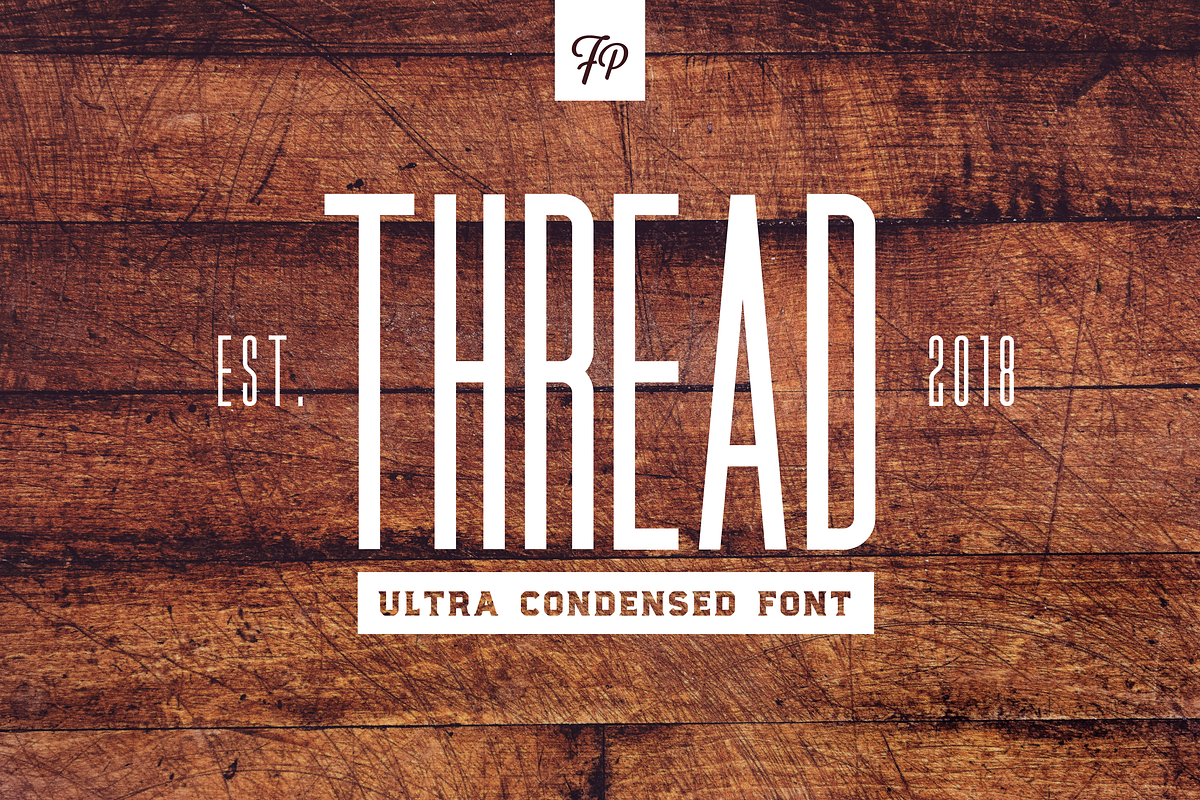
Thread - Ultra Condensed Font Free Download
Thread – Ultra Condensed Font Free Download is a sleek and modern typeface designed for maximum impact in minimal space. Please note: you must purchase this font for commercial use, but you can test it through a free download. With its tall, narrow letterforms and clean lines, Thread is perfect for headlines, posters, magazine layouts, fashion branding, and bold social media content.
This ultra condensed font is ideal for designers who want to say more with less—packing powerful messaging into compact spaces without sacrificing style. Whether you're creating a minimalist logo or a striking editorial title, Thread – Ultra Condensed Font Free Download delivers elegance and edge. Fully compatible with Adobe Illustrator, Photoshop, Canva, and more, it fits seamlessly into any modern workflow. Download it today for personal use and tighten up your typography with the sharp, stylish look of Thread.